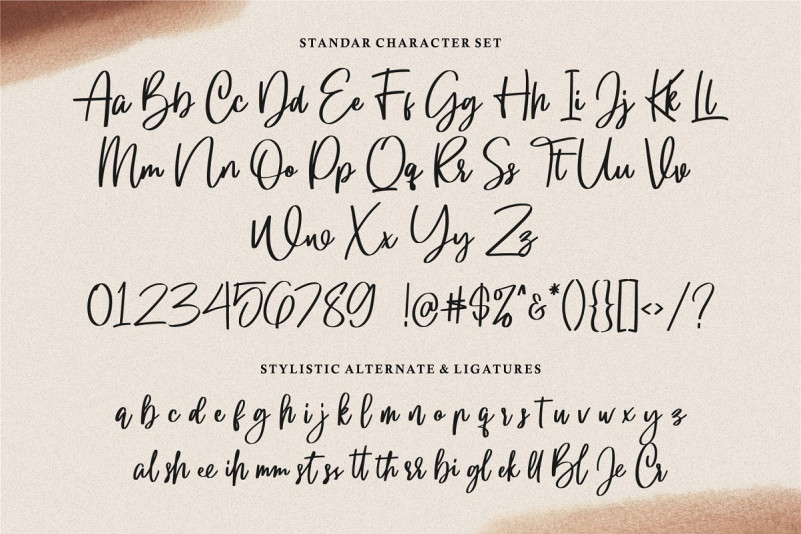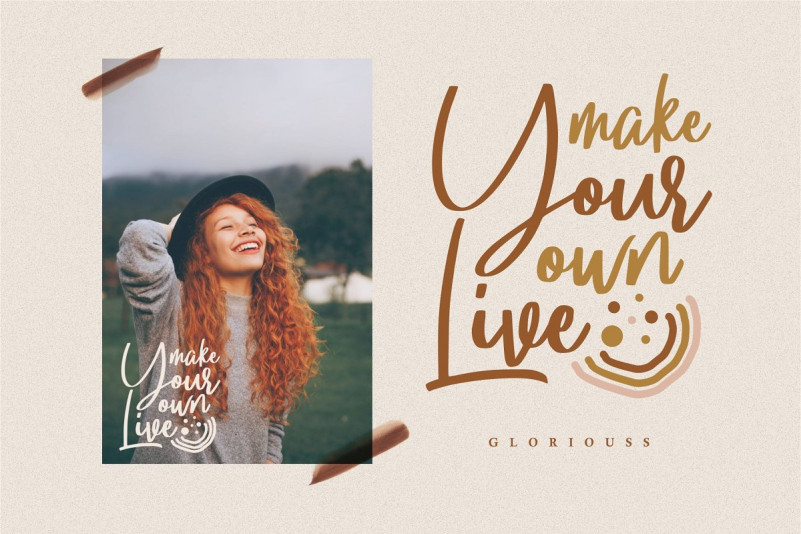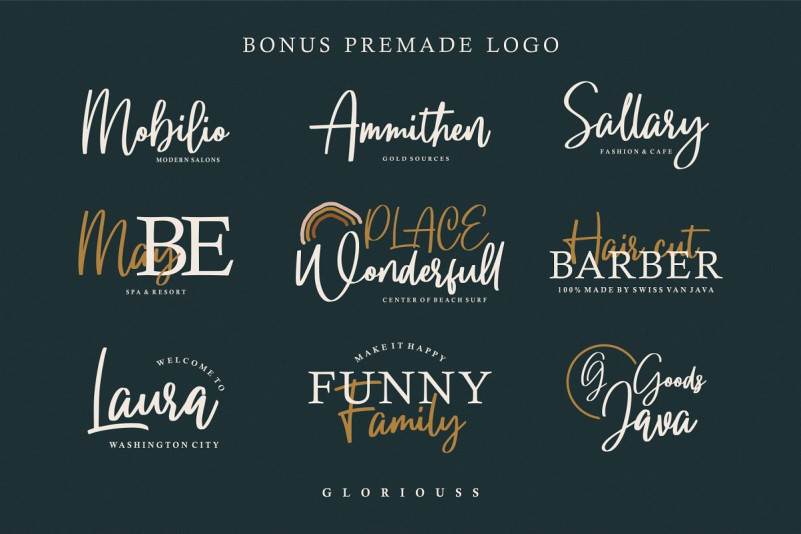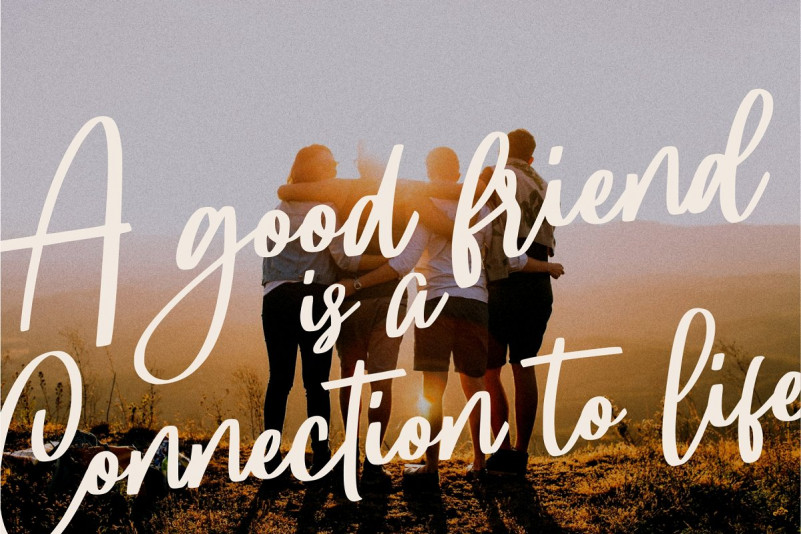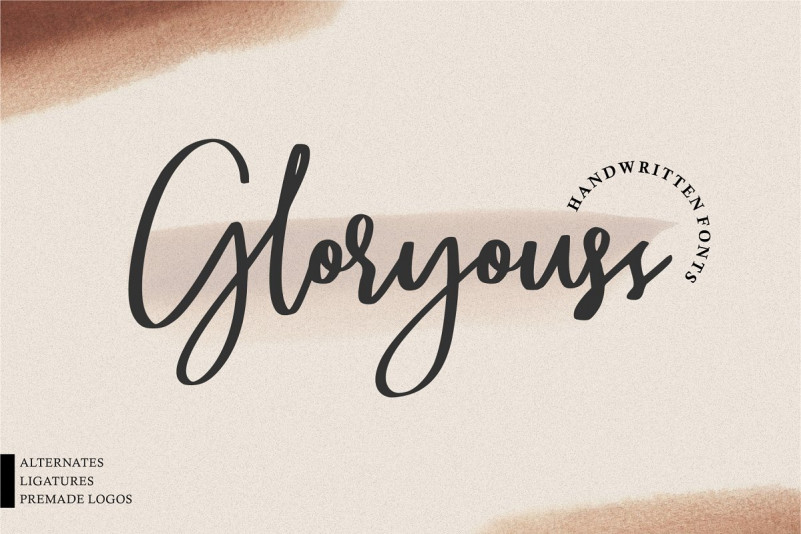
Gloryouss Script Font
This is a stunningly beautiful handwritten font for luxury, is a beautiful writing theme with a charming curve. Introducing Gloryouss Font. Gloryouss Script Font is a natural & modern handwritten font. I’ts perfect for logo, invitation, stationery, wedding designs, social media posts, advertisements, product packaging, product designs, label, photography, watermark, special events or anything.